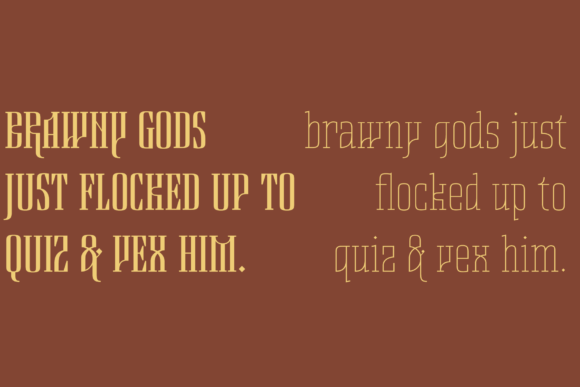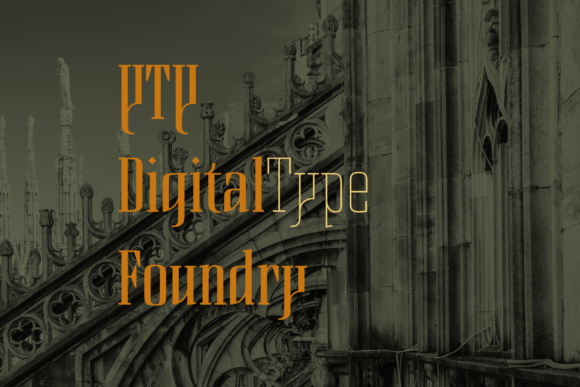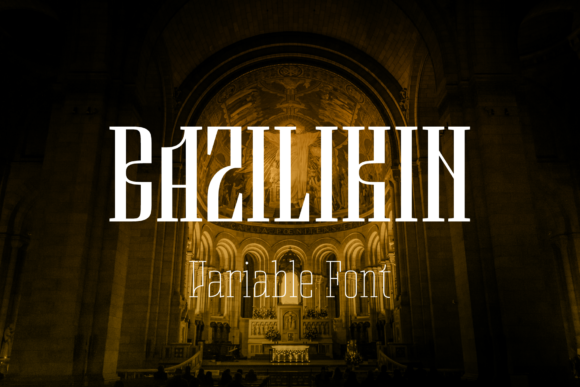
Bazilikin Font: The Ultimate Choice for Bold and Assertive Designs
In the world of typography, a font can make or break a design. A well-chosen font can elevate your creative project, while a poorly chosen one can bring it down. If you’re a designer or crafter looking for a font that can help you create stunning and assertive designs, look no further than Bazilikin. This cool, bold, and assertive serif font is masterfully designed to become a true favorite among designers, and for good reason.
The Power of Bazilikin Font
Bazilikin is more than just a font – it’s a design statement. With its bold and assertive personality, it’s perfect for designers who want to make a statement with their work. Whether you’re creating a logo, a poster, or a website, Bazilikin has the potential to bring each of your creative ideas to the highest level. Its unique and elegant design makes it stand out from other serif fonts, and its versatility ensures that it can be used in a wide range of design projects.
What Makes Bazilikin So Special?
So, what makes Bazilikin so special? Here are just a few reasons why designers and crafters are falling in love with this amazing font:
- Bold and Assertive: Bazilikin is a font that demands attention. Its bold and assertive personality makes it perfect for designs that need to stand out from the crowd.
- Elegant and Sophisticated: Despite its boldness, Bazilikin is also elegant and sophisticated. Its unique design ensures that it adds a touch of class to any design project.
- Versatile: Bazilikin is a versatile font that can be used in a wide range of design projects, from logos and posters to websites and magazines.
- Easy to Read: Despite its boldness, Bazilikin is also easy to read, making it perfect for designs that require a clear and concise message.
How to Use Bazilikin Font in Your Designs
Using Bazilikin in your designs is easy. Here are a few tips to get you started:
- Pair it with Other Fonts: Bazilikin can be paired with other fonts to create a unique and interesting design. Try pairing it with a sans-serif font for a bold and modern look.
- Use it for Headings: Bazilikin’s bold and assertive personality makes it perfect for headings and titles. Use it to add emphasis to your design and draw attention to important information.
- Experiment with Colors: Bazilikin looks great in a variety of colors. Experiment with different colors to find the one that works best for your design.
Why Designers and Crafters Love Bazilikin
Designers and crafters love Bazilikin for a variety of reasons. Here are just a few:
- Unique Design: Bazilikin’s unique design ensures that it stands out from other serif fonts. Designers and crafters love using it to add a touch of elegance and sophistication to their designs.
- Easy to Use: Bazilikin is easy to use, even for designers and crafters who are new to typography. Its clear and concise design makes it easy to read and understand.
- Versatile: Bazilikin’s versatility ensures that it can be used in a wide range of design projects. Designers and crafters love using it for everything from logos and posters to websites and magazines.
In conclusion, Bazilikin is a cool, bold, and assertive serif font that’s perfect for designers and crafters who want to create stunning and assertive designs. Its unique and elegant design makes it stand out from other serif fonts, and its versatility ensures that it can be used in a wide range of design projects. Whether you’re creating a logo, a poster, or a website, Bazilikin has the potential to bring each of your creative ideas to the highest level. So why wait? Download Bazilikin today and start creating amazing designs!